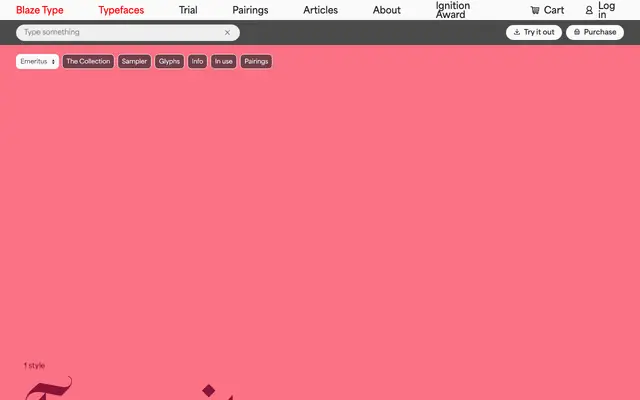
Emeritus
A single-style blackletter drawing on rotunda and Fraktur traditions, with high-contrast strokes and thin organic terminals that give the letterforms a calligraphic rhythm.
Designed by Tim Vanhille, Léon Hugues and Matthieu Salvaggio, Emeritus builds from the historical ductus of rotunda blackletter and layers in sharp, high-contrast details characteristic of Blaze Type's house aesthetic. The thin organic terminals introduce a lively, almost dancing quality that sets it apart from more rigid Fraktur revivals. Positioned for posters, film titles and web projects that require a strong gothic presence without sacrificing elegance.
Explicitly drawn from rotunda and Fraktur traditions, combining historical blackletter structure with high-contrast modern detailing and calligraphic terminals. The foundry classifies it as blackletter and describes its rotunda origins directly.